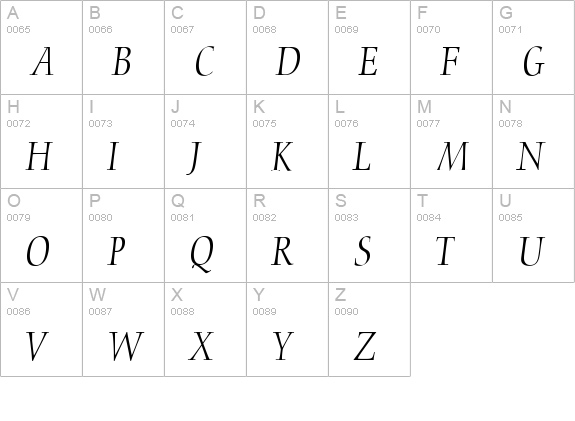
Nofret Expert BQ Light Italic OsF Font Details
Nofret Expert BQ Light Italic OsF is a refined, elegant, italic variant in the Nofret typeface family \xE2\x80\x94 well suited to elegant body text, refined sub-headings, and luxury branding.
Nofret Expert BQ Light Italic OsF font is a sleek and sophisticated typeface perfect for adding a touch of elegance to your design projects. With its delicate curves and refined appearance, this font exudes a sense of modernity and style. The italic style of Nofret Expert BQ Light Italic OsF adds a subtle flair to any text, making it ideal for use in headings, logos, and other creative applications. Best of all, this exquisite font is available for free download at FontsMarket.com. Whether you're a professional designer looking to enhance your projects or a casual user in need of a stylish font for personal use, Nofret Expert BQ Light Italic OsF is the perfect choice. Don't miss out on the opportunity to elevate your designs with this stunning typeface, available at no cost. Download it today and bring a touch of sophistication to your creative endeavors.